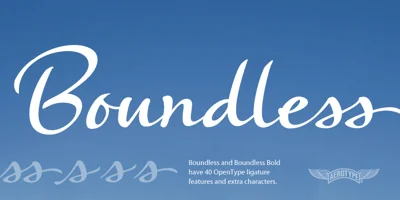
Boundless Font
The Boundless Font is excellent for creative projects including adventure brand logos, outdoor equipment packaging, travel websites, sports team branding, motivational posters, fitness industry materials, extreme sports advertisements, and inspirational quote designs. This dynamic typeface brings energy and movement to any design project that needs to convey unlimited potential.
What makes Boundless Font so exciting is its bold, expansive character that embodies freedom and limitless possibilities. The letters feature strong, confident strokes with dynamic proportions that create an immediate sense of power and determination. This distinctive design makes it perfect for brands and projects that want to communicate strength, adventure, and the spirit of breaking through barriers.
The Boundless Font family typically includes regular and bold weights, along with condensed and extended variations. Many versions feature special decorative elements, stylistic alternates, and comprehensive character sets that provide designers with extensive creative flexibility for their adventurous projects.
Whether you're designing for outdoor brands, fitness companies, or motivational content, Boundless Font provides the perfect solution for projects that need to inspire action and convey unlimited potential. This font transforms ordinary text into powerful designs that immediately communicate energy, determination, and the courage to push beyond limits to your audience.